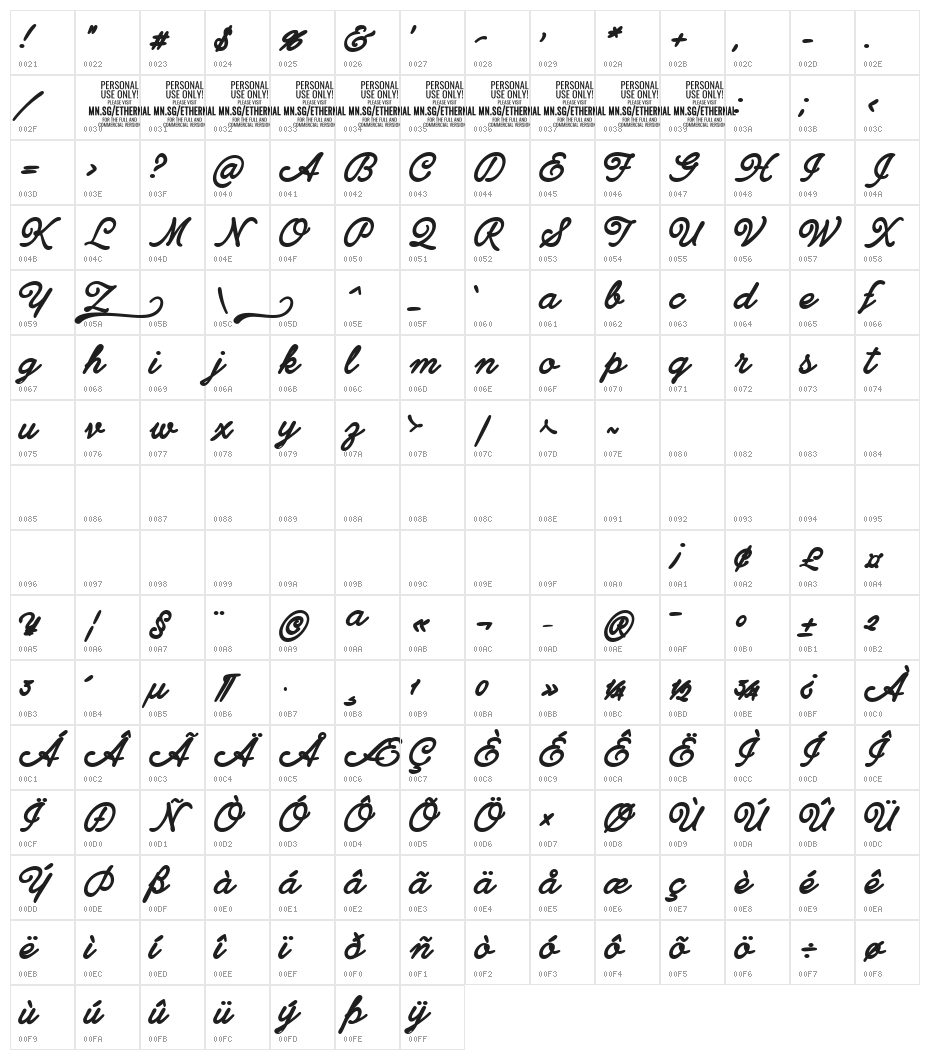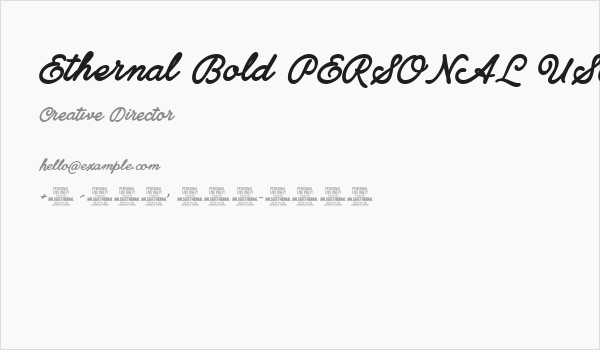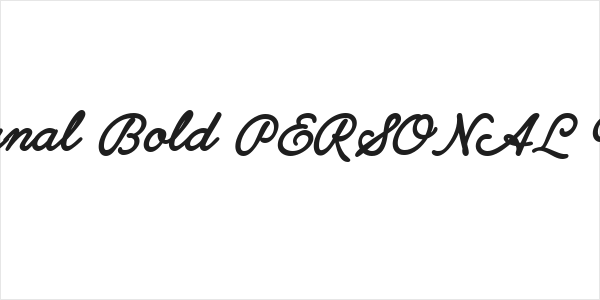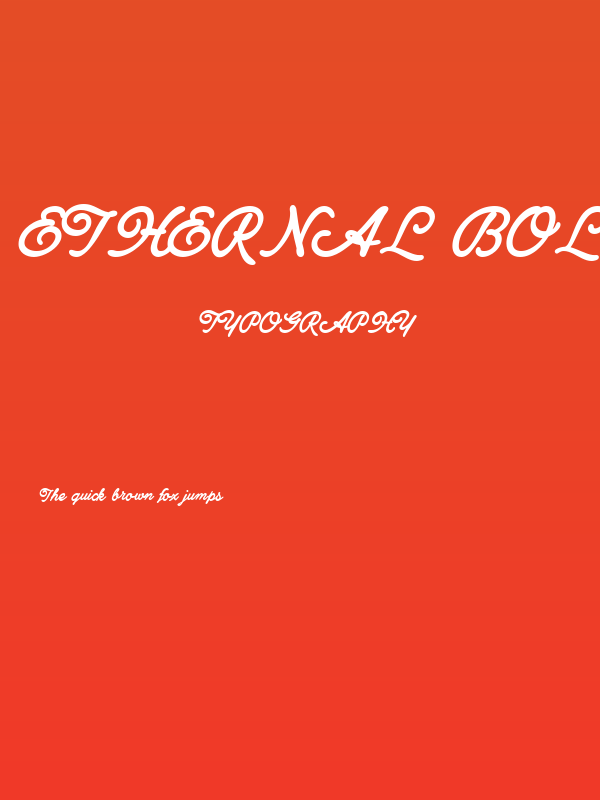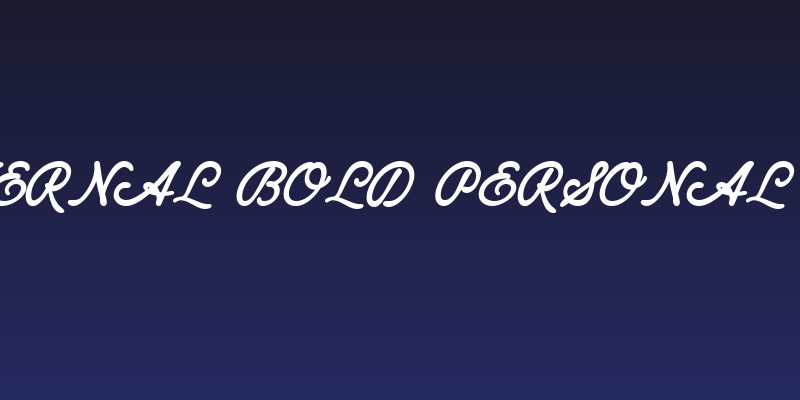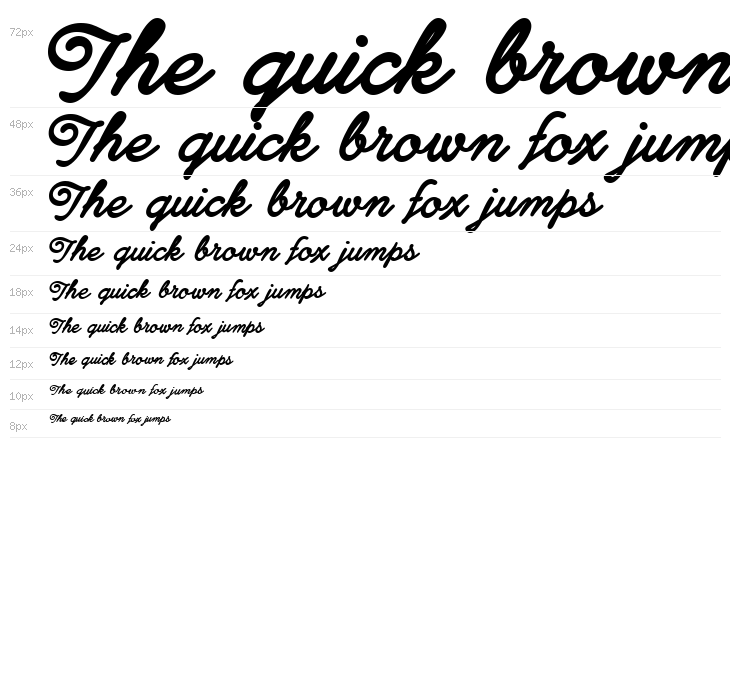
Ethernal Bold PERSONAL USE Font
Ethernal Bold PERSONAL USE Description
This font features a bold, flowing script style that exudes elegance and sophistication. The letters are interconnected, creating a seamless and fluid appearance. The uppercase characters are slightly more ornate, with flourishes that add a touch of drama. The lowercase letters maintain a consistent style, ensuring readability while retaining the decorative nature of the font. The numbers and special characters are designed to match the overall aesthetic, making them suitable for various uses. This font is ideal for projects that require a personal and artistic touch, such as invitations, branding, and signage.